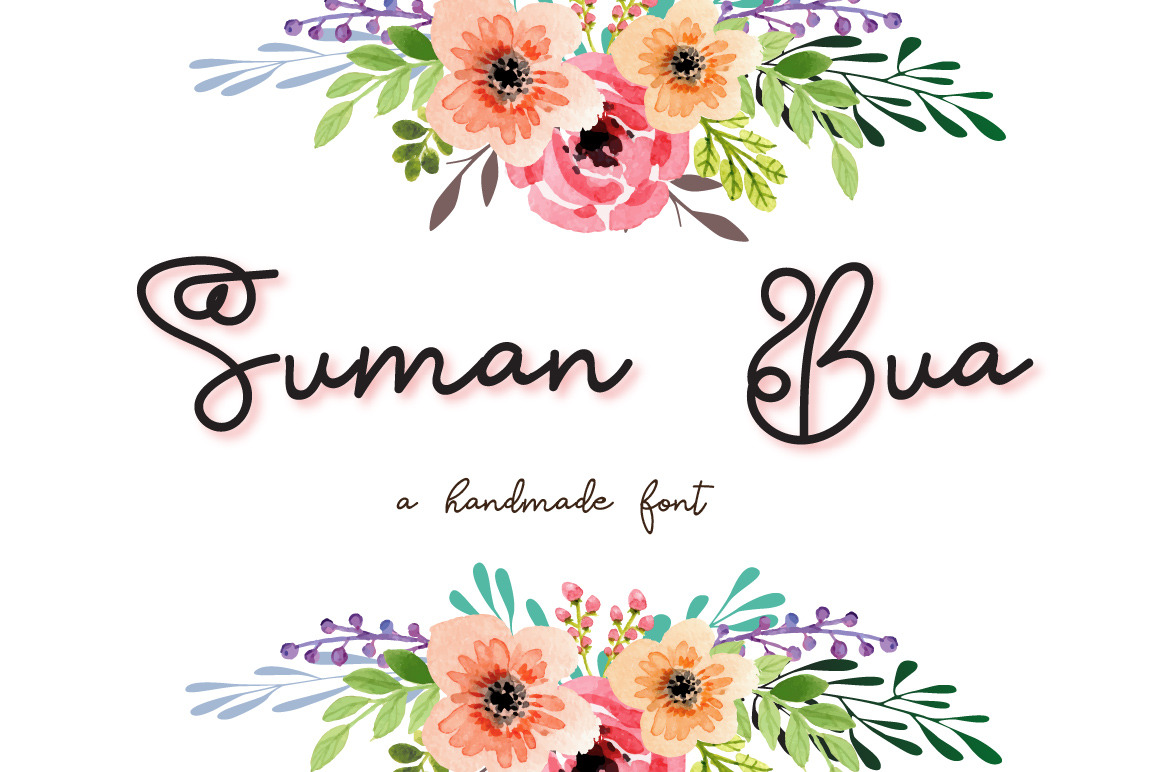
Suman Bua is a modern script font with tones of alternates, every single letters have been carefully crafted to make your text looks beautiful. With modern script style this font will perfect for many different project ex: quotes, blog header, poster, wedding, branding, logo, fashion, apparel, letter, invitation, stationery, etc. FEATURES:Suman Bua (OTF) Thanks for looking.